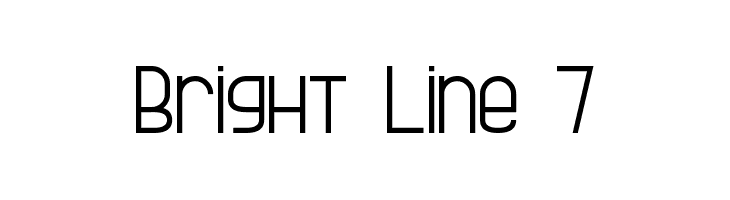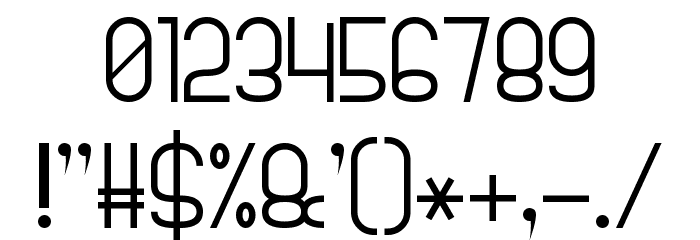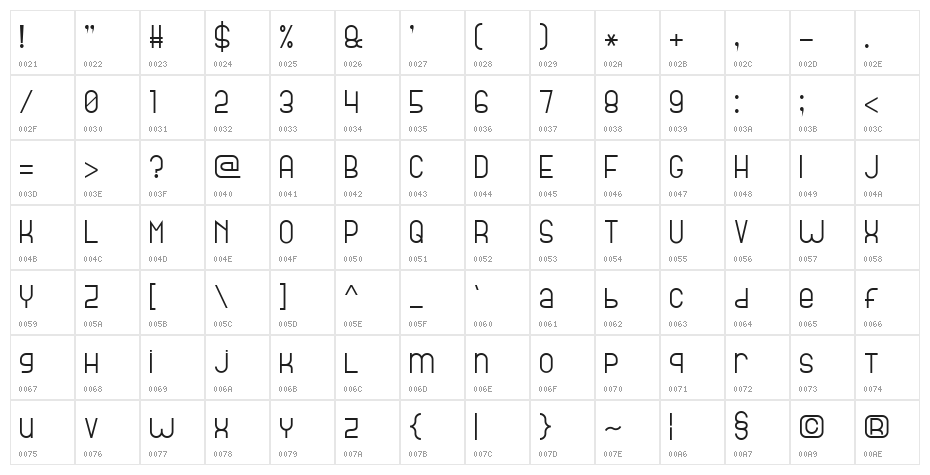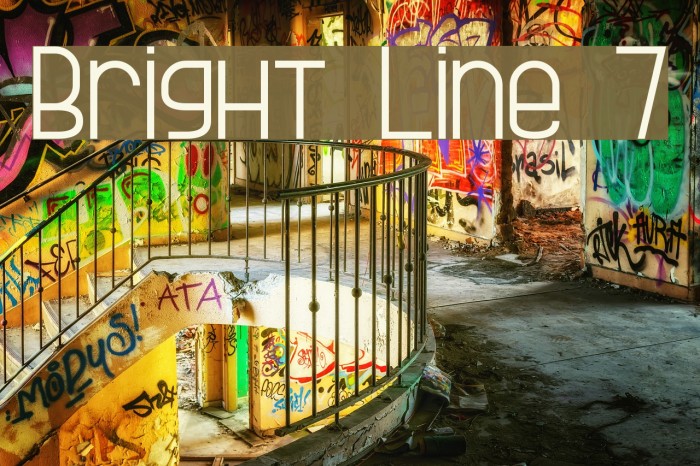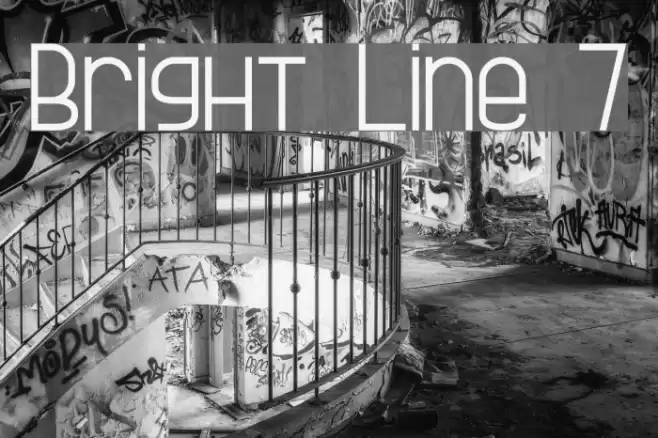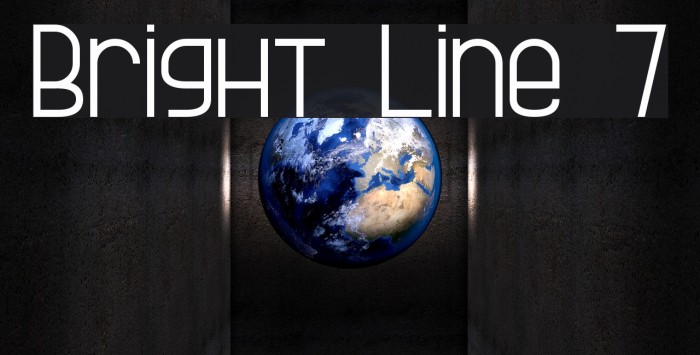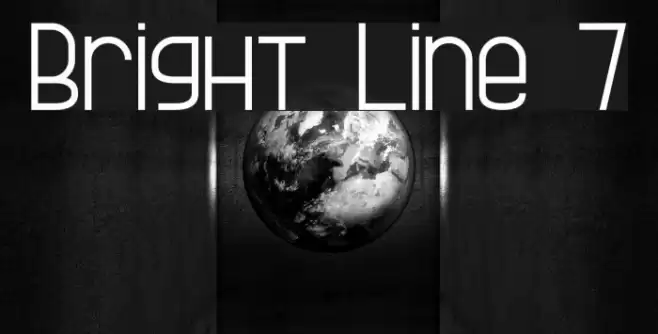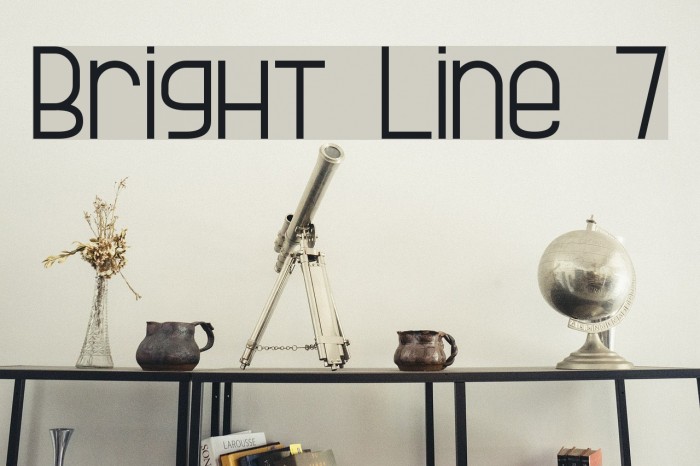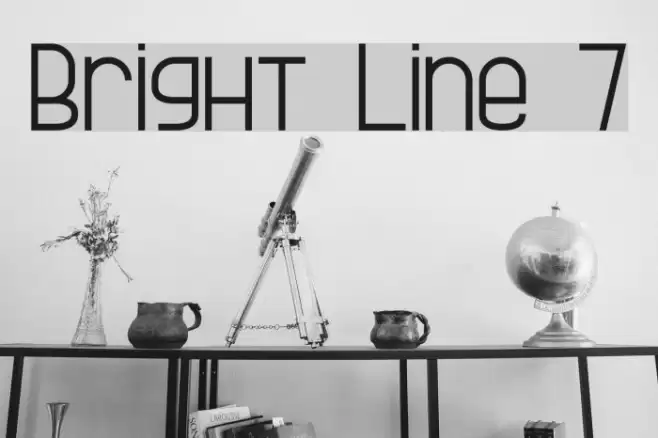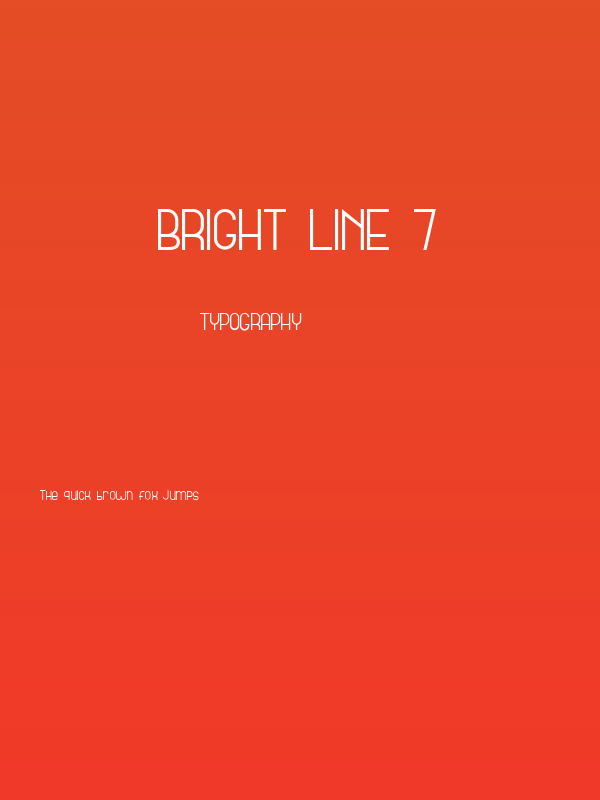
Bright Line 7 Font
Bright Line 7 Description
This font features a clean and modern aesthetic with a geometric structure. The characters are constructed with uniform line thickness, giving it a sleek and contemporary look. The uppercase and lowercase letters maintain a consistent style, with rounded edges and a balanced proportion. The numerals are clear and legible, matching the overall design of the alphabet. Special characters are included, maintaining the same geometric and minimalistic style. This font is versatile, suitable for a variety of design projects that require a modern and professional appearance.
| Proposed Projects | Ideal for branding, digital interfaces, advertising, and editorial design. |